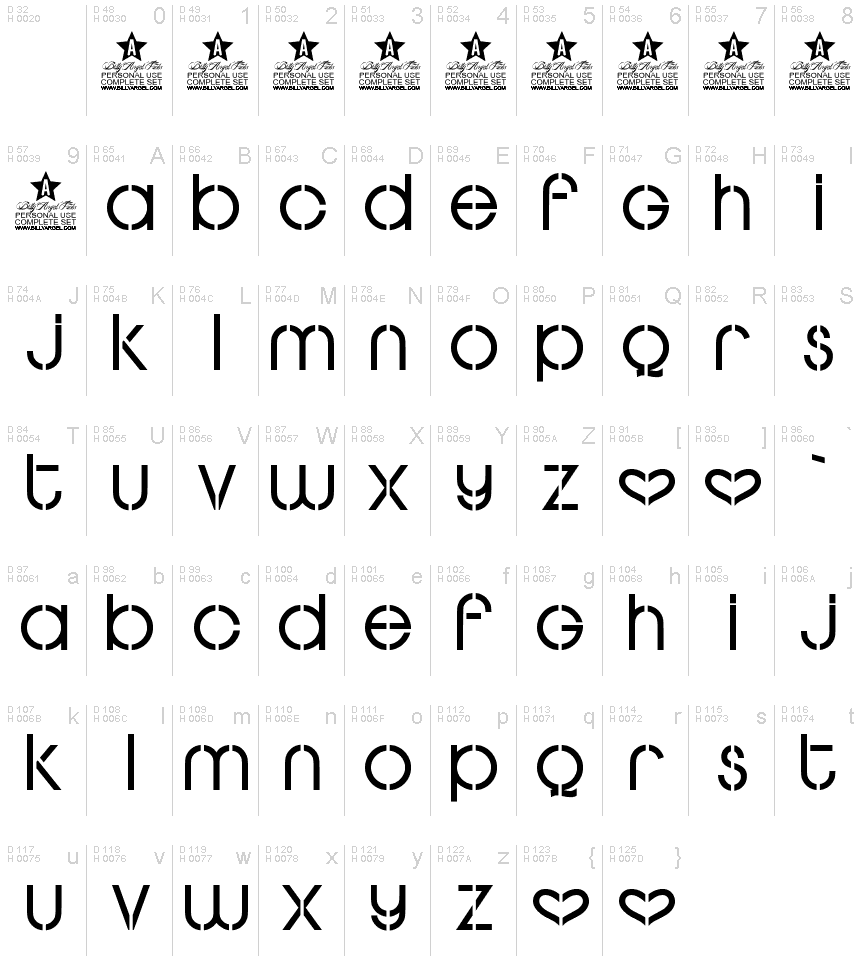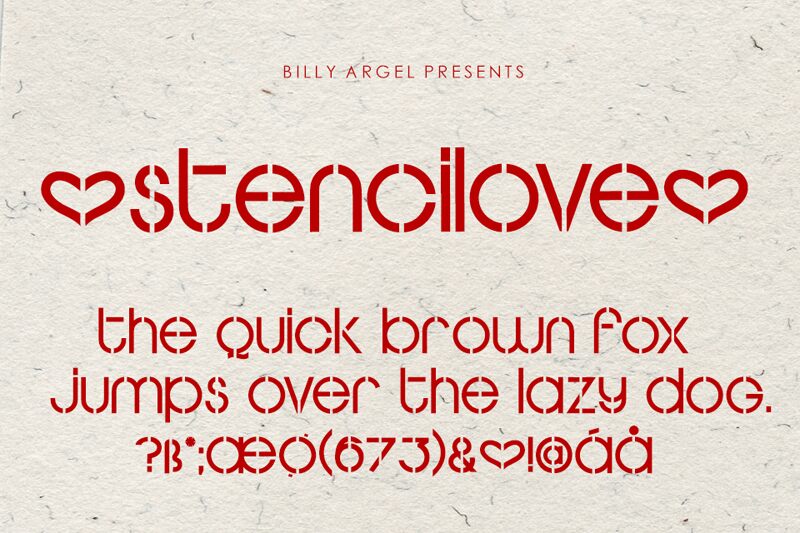
STENCILOVE PERSONAL USE Regular
Looking for a font that will make your design projects stand out? Look no further than STENCILOVE by Billy Argel Fonts. This unique display font features a stencil style that adds an edgy, modern feel to any project. With its semi-light weight, STENCILOVE is perfect for creating eye-catching headlines or adding a touch of personality to logos and branding materials. Whether you're designing posters, packaging, or website graphics, this versatile font is sure to impress. So why settle for boring fonts when you can make a statement with STENCILOVE?
STENCILOVE PERSONAL USE